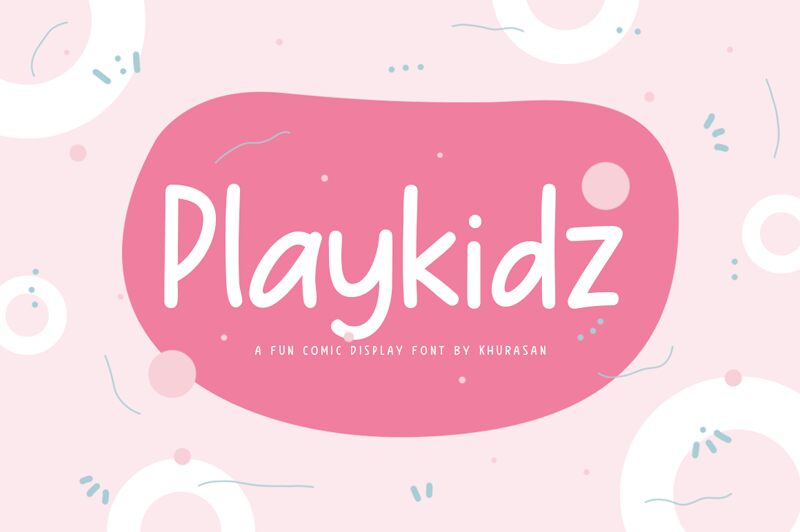
Playkidz
Playkidz is a delightful display font designed by Khurasan, perfect for adding a playful touch to your creative projects. With its semi-light weight and comic style, this font brings a fun and whimsical feel to any design. Whether you're working on children's books, party invitations, or website banners, Playkidz will add a touch of joy and adventure. Let your imagination run wild with this font that guarantees to catch the eye of both children and adults alike.